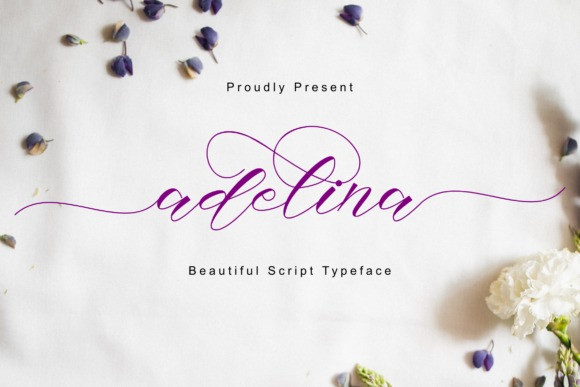
Adelina Script Font is a chic, refined script font that emanates sophistication and elegance. Its stylish alternates and ligatures make this font the perfect match for any project.
Adelina